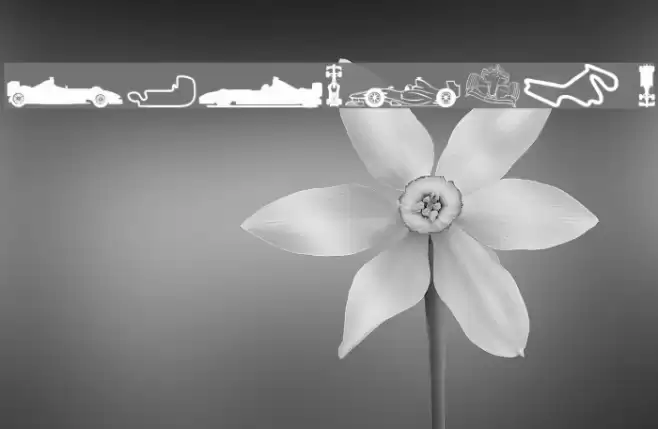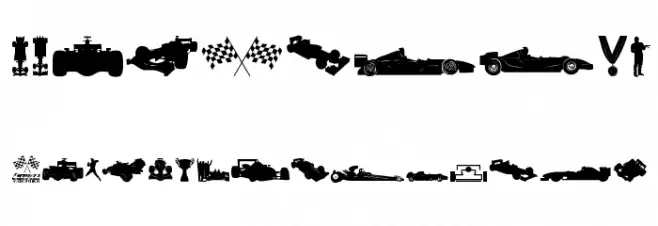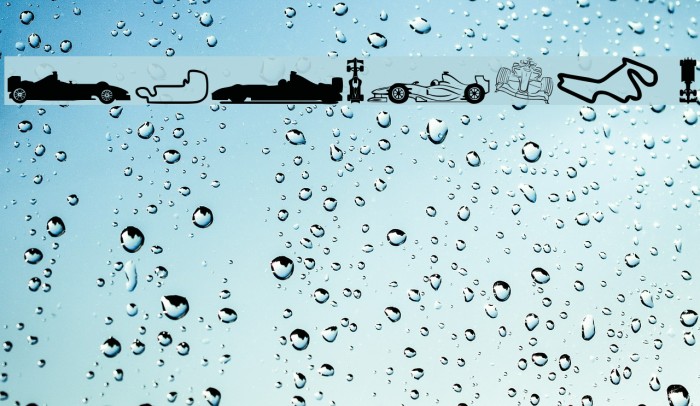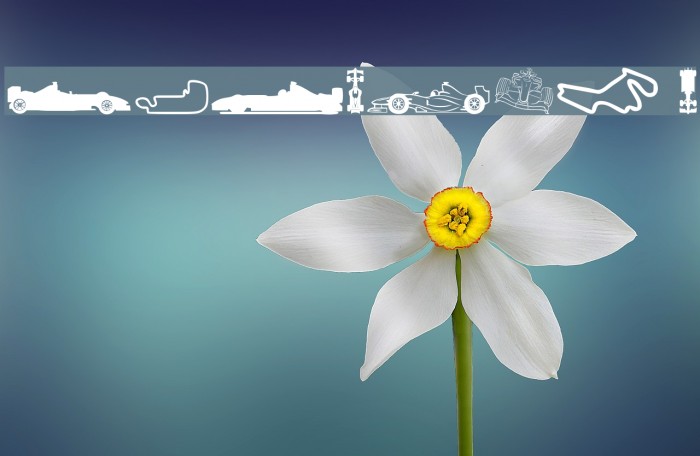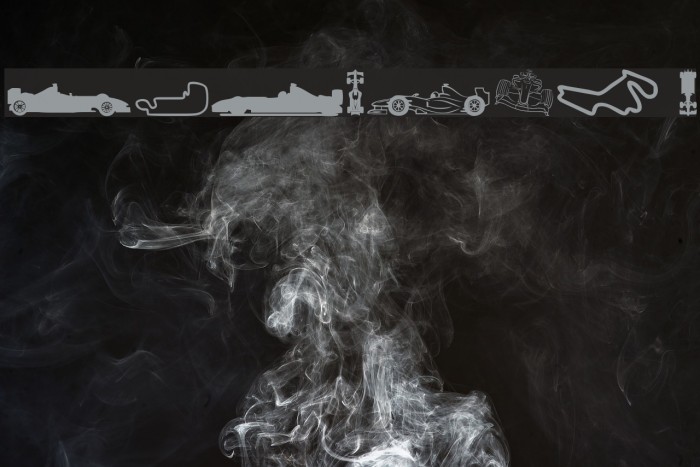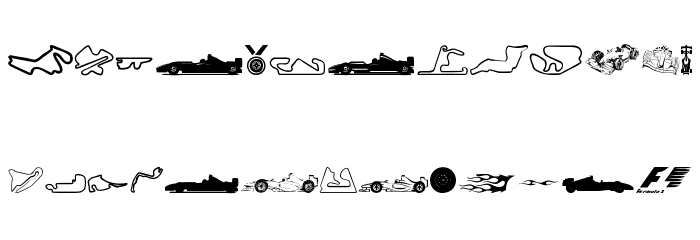
Formula 1 Font
Formula 1 Description
A decorative dingbat font featuring various Formula 1-related icons, including race cars, tracks, trophies, flags, logos, and racing paraphernalia. Each character is represented by a unique motorsport-themed silhouette or symbol, making it highly illustrative and thematic.
Motorsport-themed dingbat font with Formula 1 icons and symbols from Dingbats fonts.
- Proposed Projects: Event posters, motorsport flyers, themed invitations, educational materials about racing, fan merchandise, and digital graphics for racing websites.
- Overall Style: Decorative, Thematic, Playful
- Use Case: Logos, Posters, Themed graphics, Event materials